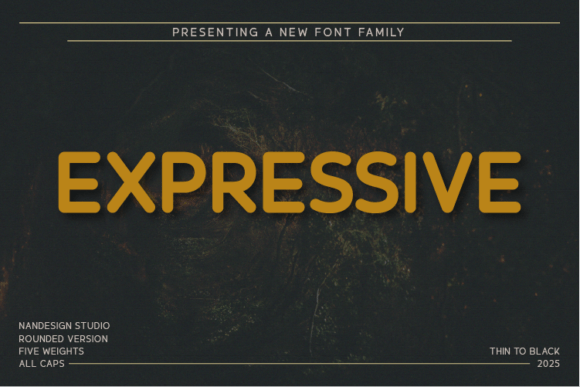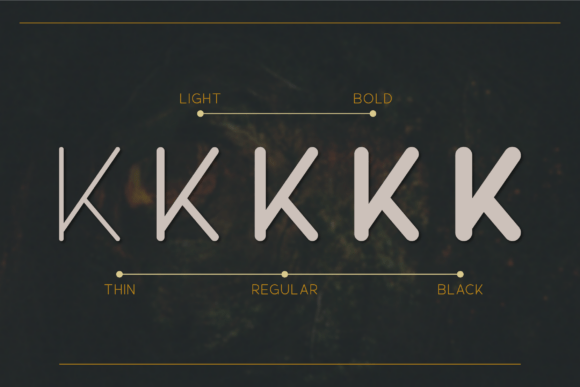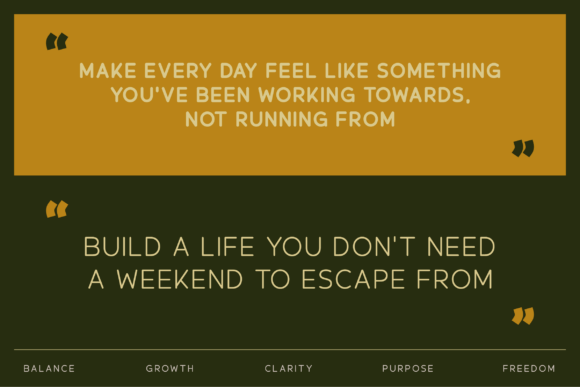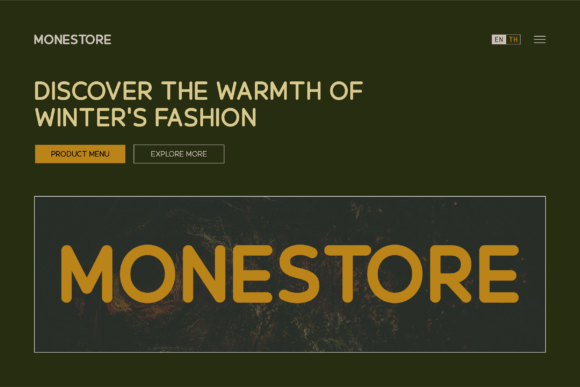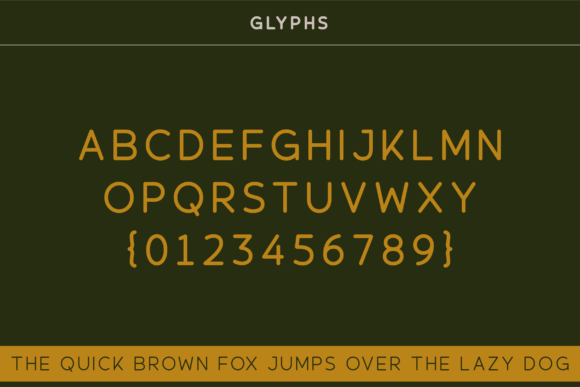
Give Your Designs a Polished Personality with the Expressive Rounded Font
Have you ever stared at a blank page, struggling to bring your creative vision to life? The blank canvas can be intimidating, but sometimes all it takes is the right font to set the tone for your project. For designers, crafters, and brand creators, finding the perfect font can be a game-changer. That’s where the Expressive Rounded Font comes in – a modern all-caps sans serif font family designed to bring clarity, warmth, and bold personality to your work.
With its soft-rounded edges and sleek, geometric construction, this versatile font family is both highly legible and aesthetically balanced across five weights. Whether you’re building a logo, packaging design, or high-impact headlines, the Expressive Rounded Font adapts beautifully, adding a polished, confident touch to your designs.
Expressive Rounded Font Key Features
- Font Family: Expressive Rounded Font is a digital font family, available in various styles and weights.
- Character Set: Expressive Rounded Font supports a wide range of characters, including Latin, Cyrillic, and Greek alphabets, as well as various punctuation marks and symbols.
- Unique Characteristics: Expressive Rounded Font is known for its distinctive rounded shapes and subtle flair, making it ideal for use in branding, packaging, and advertising materials.
Designer Review: Expressive Rounded Font
I recently had the chance to work with the Expressive Rounded Font, and I have mixed feelings about it. On the one hand, there are some aspects that I really like, and on the other hand, there are some limitations that need to be addressed.
The Expressive Rounded Font is highly customizable, which is great for designers who want to tailor the look and feel to their specific project.
It has a wide range of weights and styles, making it suitable for a variety of applications, from body text to headings.
The font is highly legible, even at small font sizes, which is essential for readability.
The Expressive Rounded Font is not suitable for use in titles or headings that require a lot of emphasis, as the rounded edges can make it appear soft and unprofessional.
The font may not be the best choice for digital displays, as the rounded edges can be lost in low-resolution screens.
The Expressive Rounded Font is not a unique or original design, as it is reminiscent of other, more established fonts in the market.
Overall, I would say that the Expressive Rounded Font is a solid, middle-of-the-road choice for designers. While it has some great features and is highly customizable, it also has some limitations that need to be considered. With some careful consideration of the project requirements and target audience, the Expressive Rounded Font could be a great choice. However, it’s not a game-changer or a standout font in the market.
Expressive Rounded Font: A Practical Application Guide
For the most effective use of the Expressive Rounded Font, pair it with bold colors and playful illustrations. Experiment with font sizes and styles to create visual interest and hierarchy in your design. Use the Expressive Rounded Font in headings and subheadings to draw attention and emphasize key messages.
The Expressive Rounded Font is ideal for:
- Children’s books and educational materials
Is Expressive Rounded Font available in different weights and styles?
Yes, Expressive Rounded Font is available in various weights, including light, regular, medium, bold, and extra bold. It also comes in different styles, such as italic and condensed. You can use these weights and styles to create visual hierarchy and emphasis in your designs. However, please note that not all weights and styles may be available in all font formats, such as TrueType or OpenType.